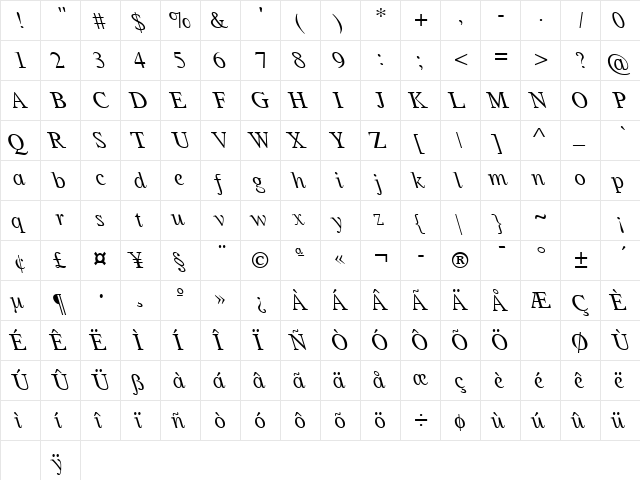
Dabbington Italic Italic
Design Context for Dabbington Italic Typeface
Dabbington Italic takes a measured approach to typography — its balanced proportions and neutral character make it a reliable workhorse for both digital and print work. The slanted form adds forward momentum and visual energy.
Pro Tip: Use Dabbington Italic for emphasis, pull quotes, and subheadings where its slanted energy can add rhythm to the layout.